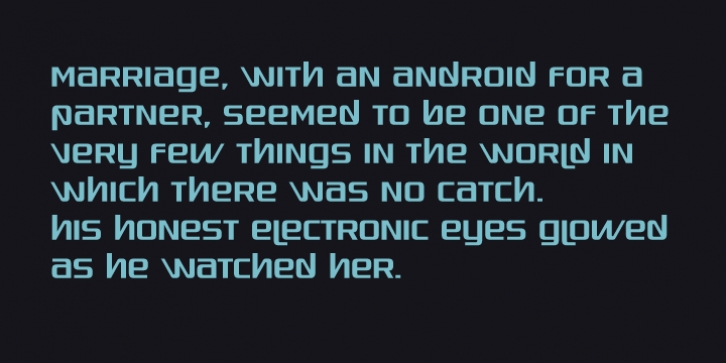
Quadaptor downloadDesigner: Ray Larabie
Publisher: Typodermic
Quadaptor is a retro, techno font inspired by the font used in the logo for Dynaco audio equipment in the 1970s.